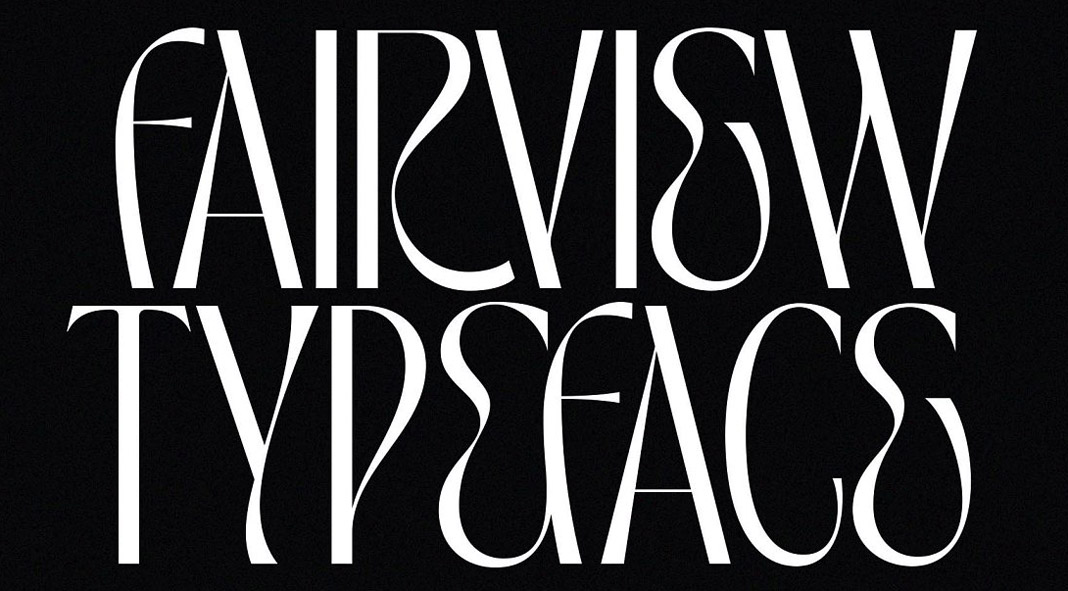
TAN Fairview, an art deco-inspired display font by TanType.
Today we want to show you another outstanding font created by the team of foundry TanType. The TAN Fairview font combines stylistics of art deco elements with TanType’s distinctive curvy calligraphy style. You can use this display font for a range of design projects including titles, logo designs, branding, packaging, etc. The TAN Fairview font will definitely give your typographic work a unique look. Just click on the following link to learn more about the new TAN Fairview font.